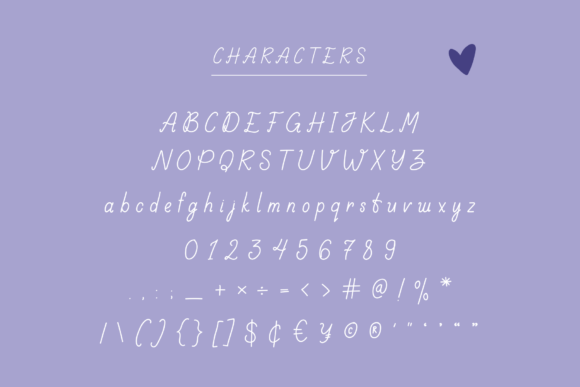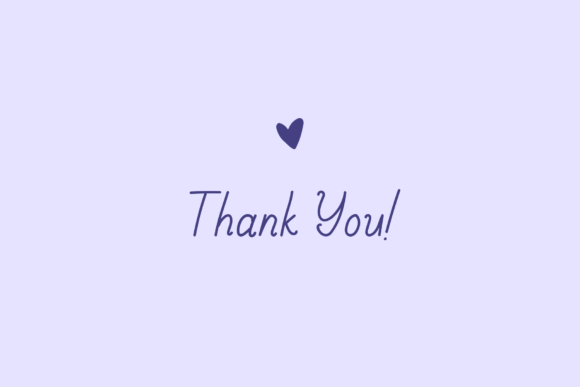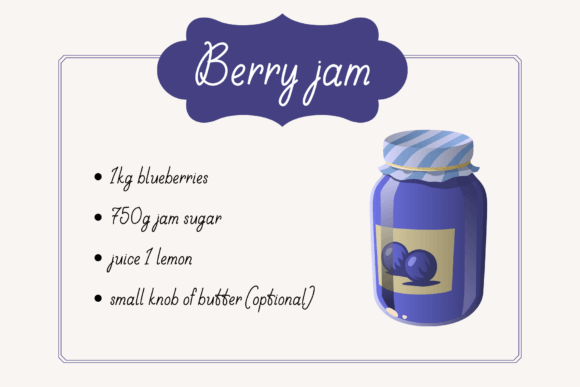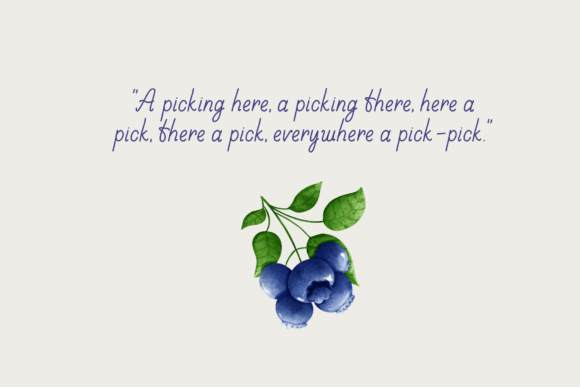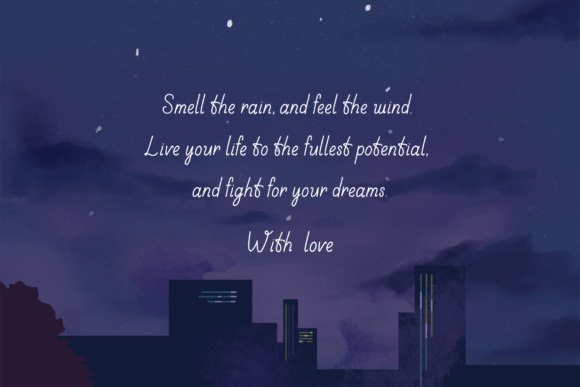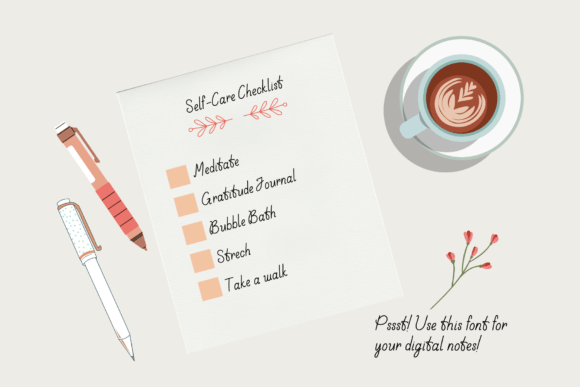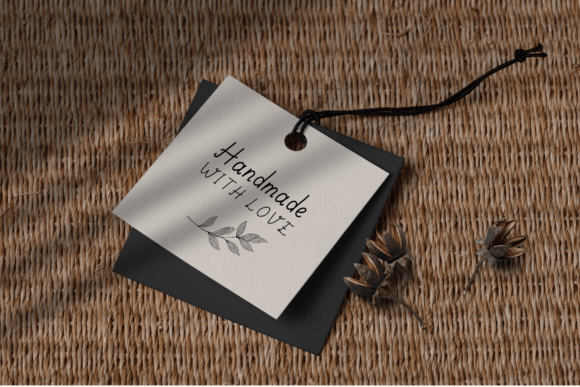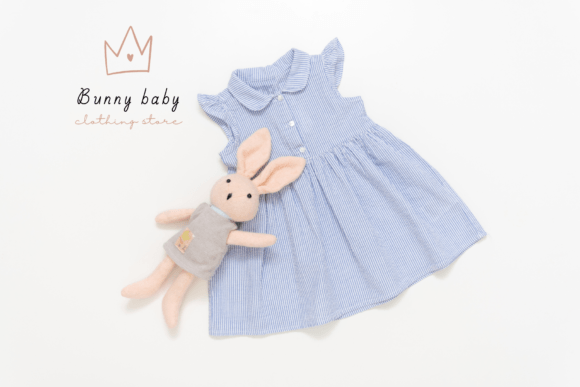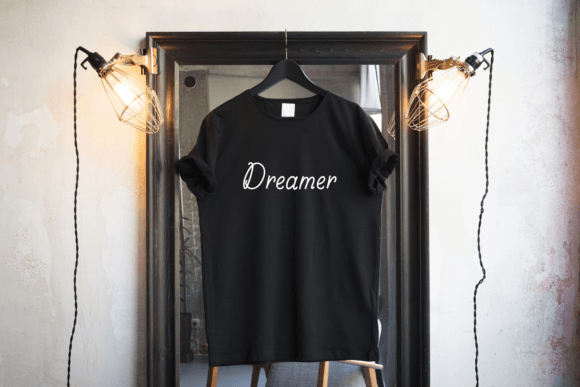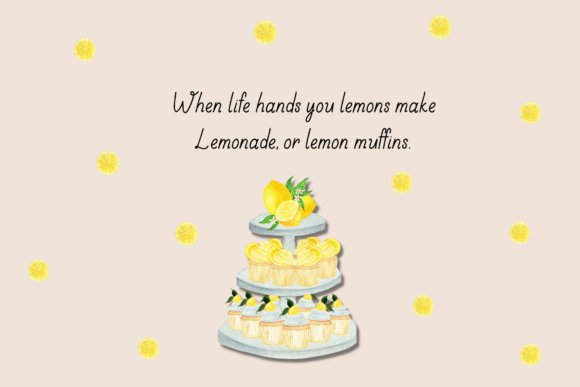
Blueberry Font
About Blueberry Font
Blueberry is a handwritten font perfect for digital notes, planners, logos, web designs, notebooks, journals, labels, blogs, quotes, greeting cards, tea towels, apparel, pillows, mugs, toys, posters, baby clothing, picture books and so much more! Basically, anything that requires a handwritten look! ????